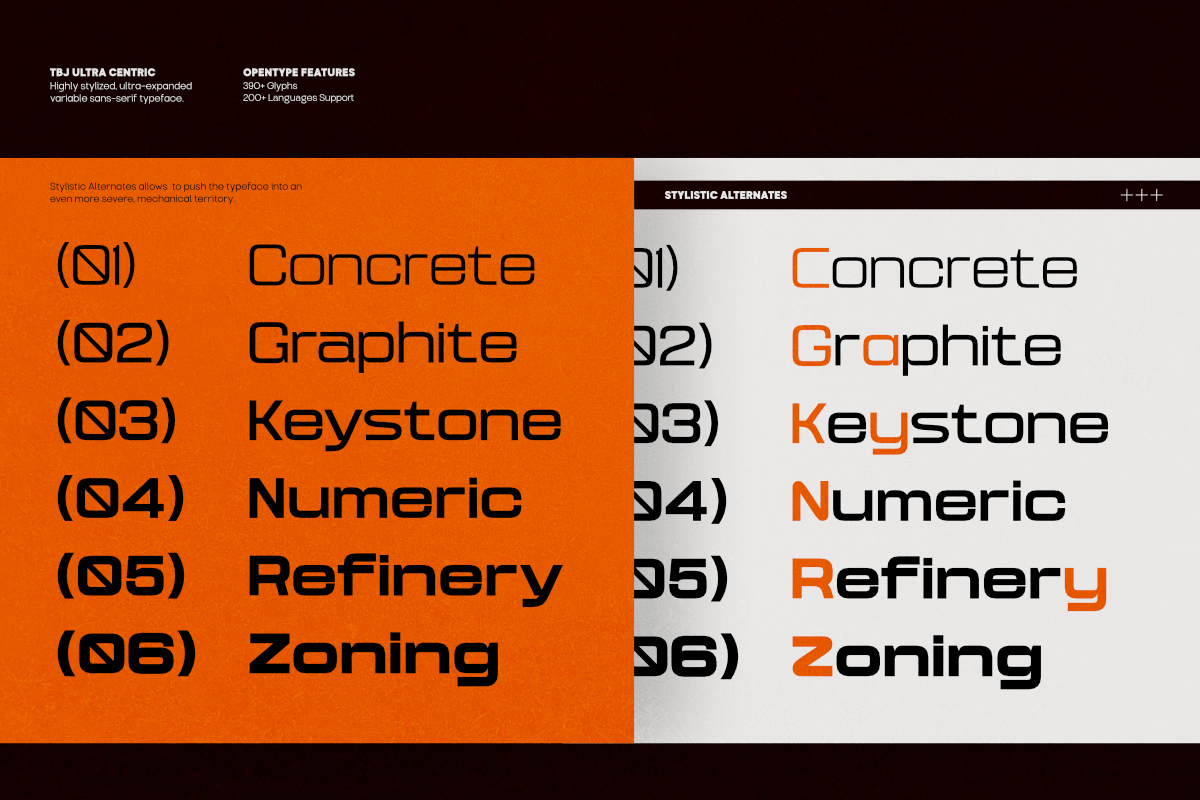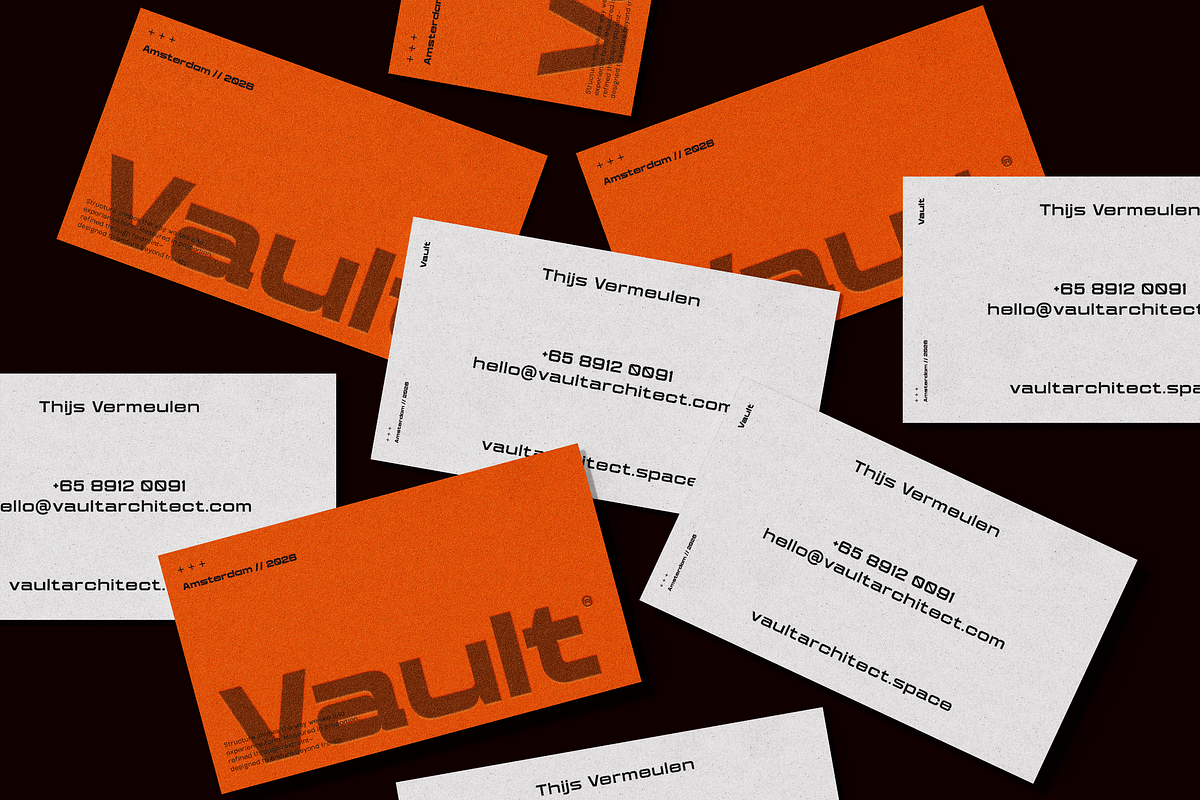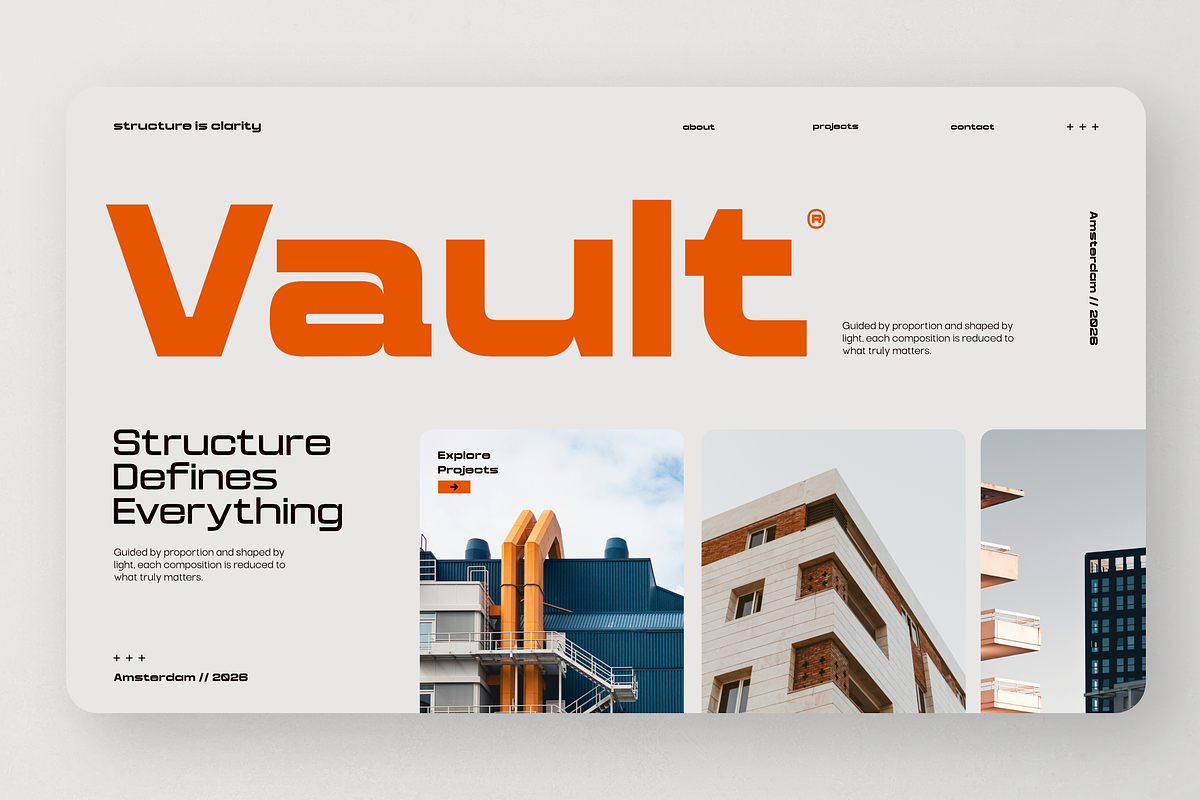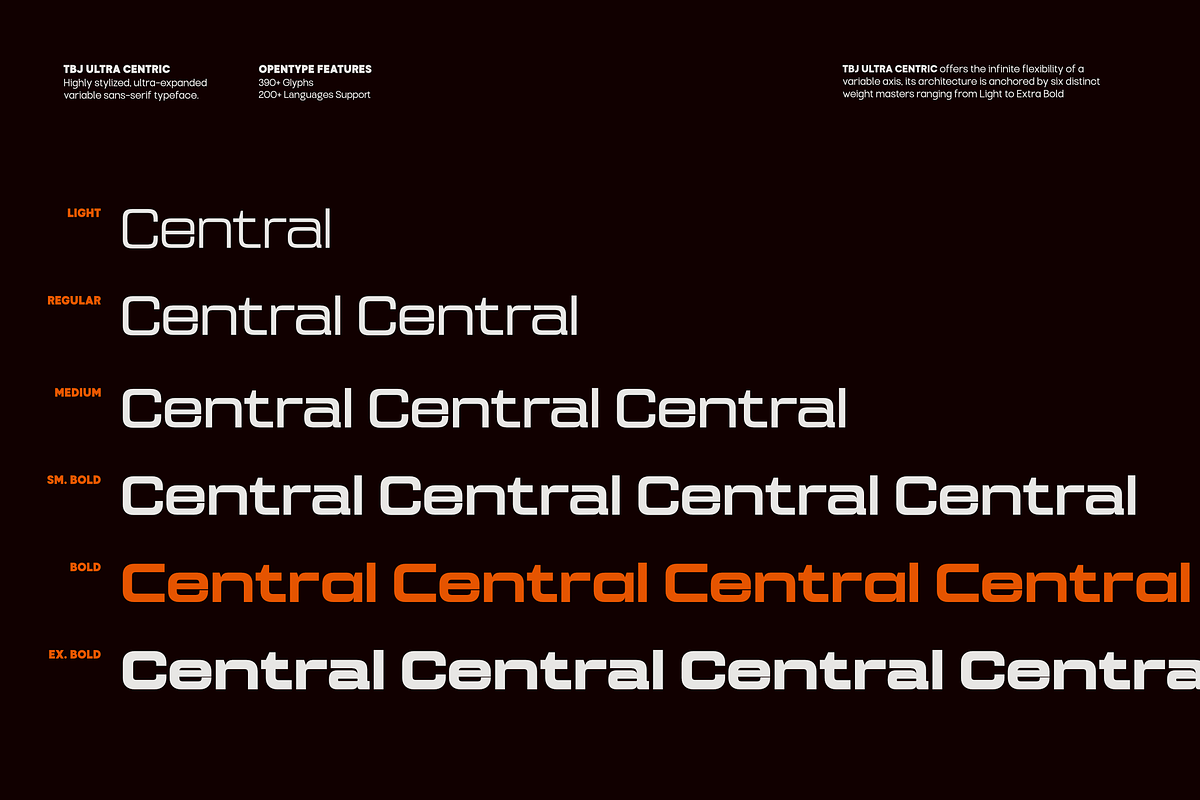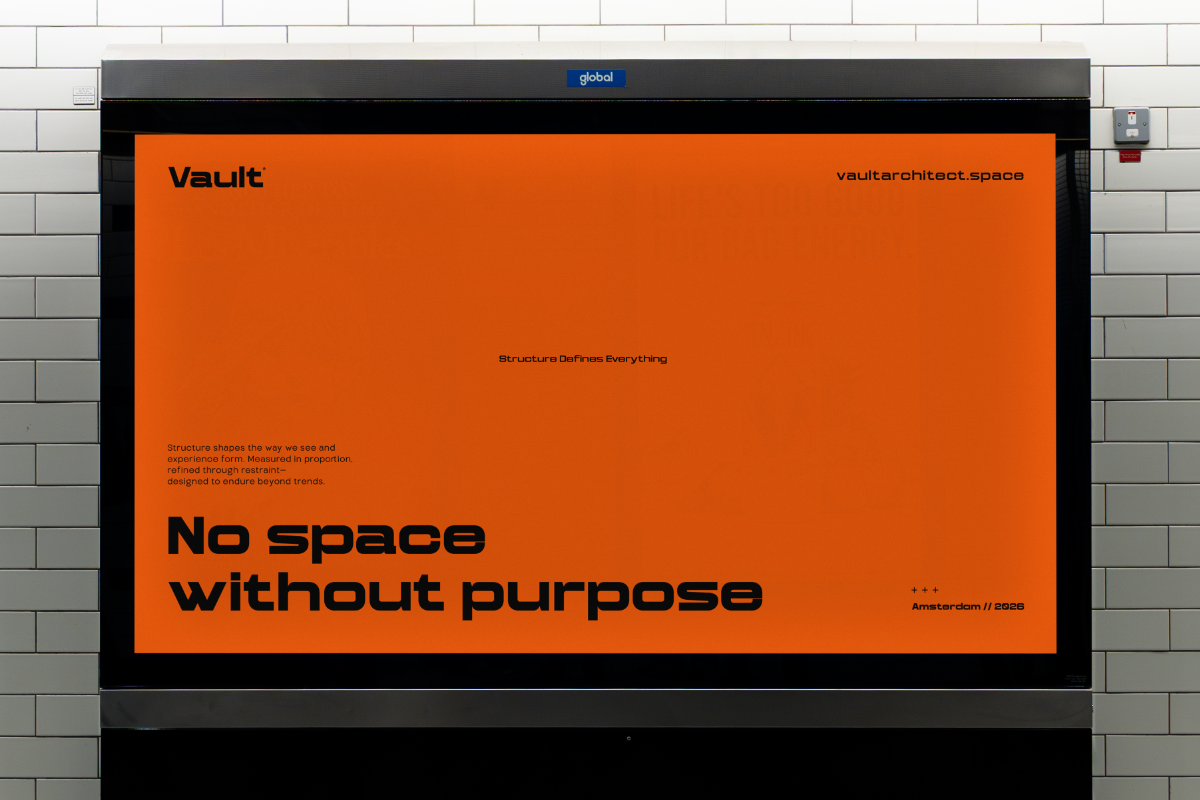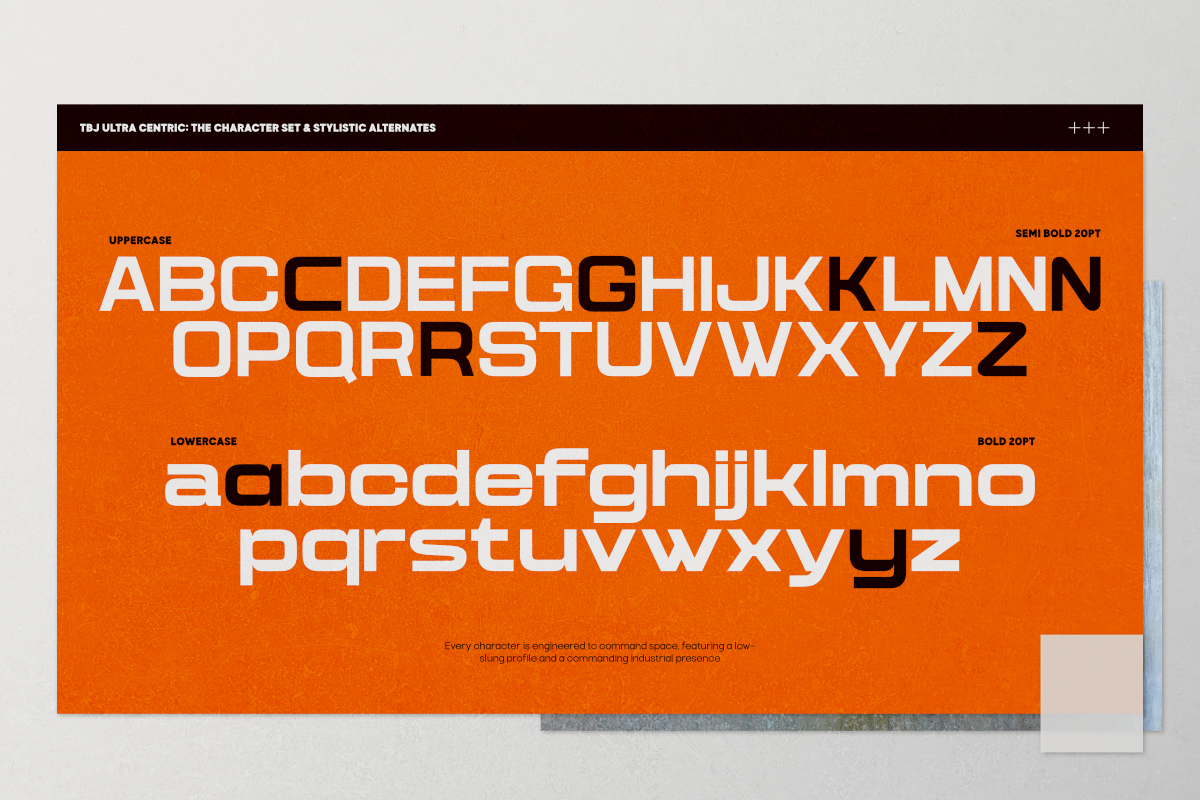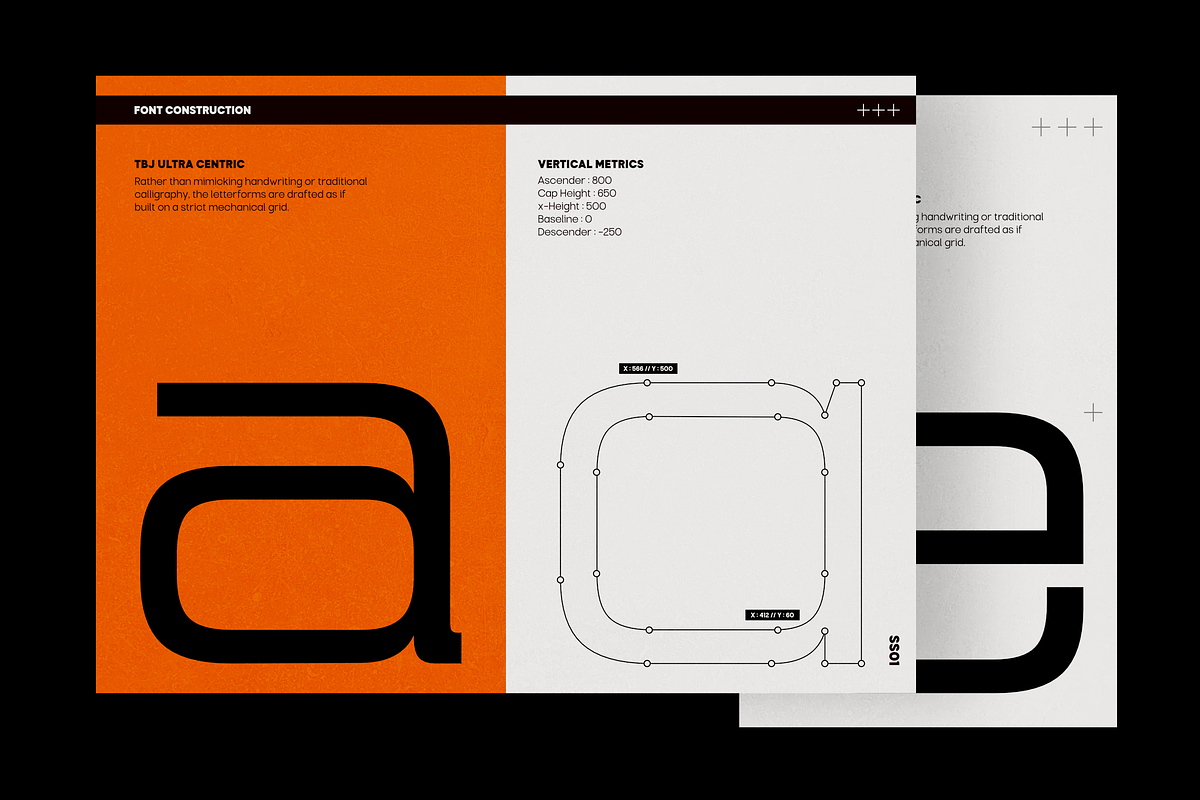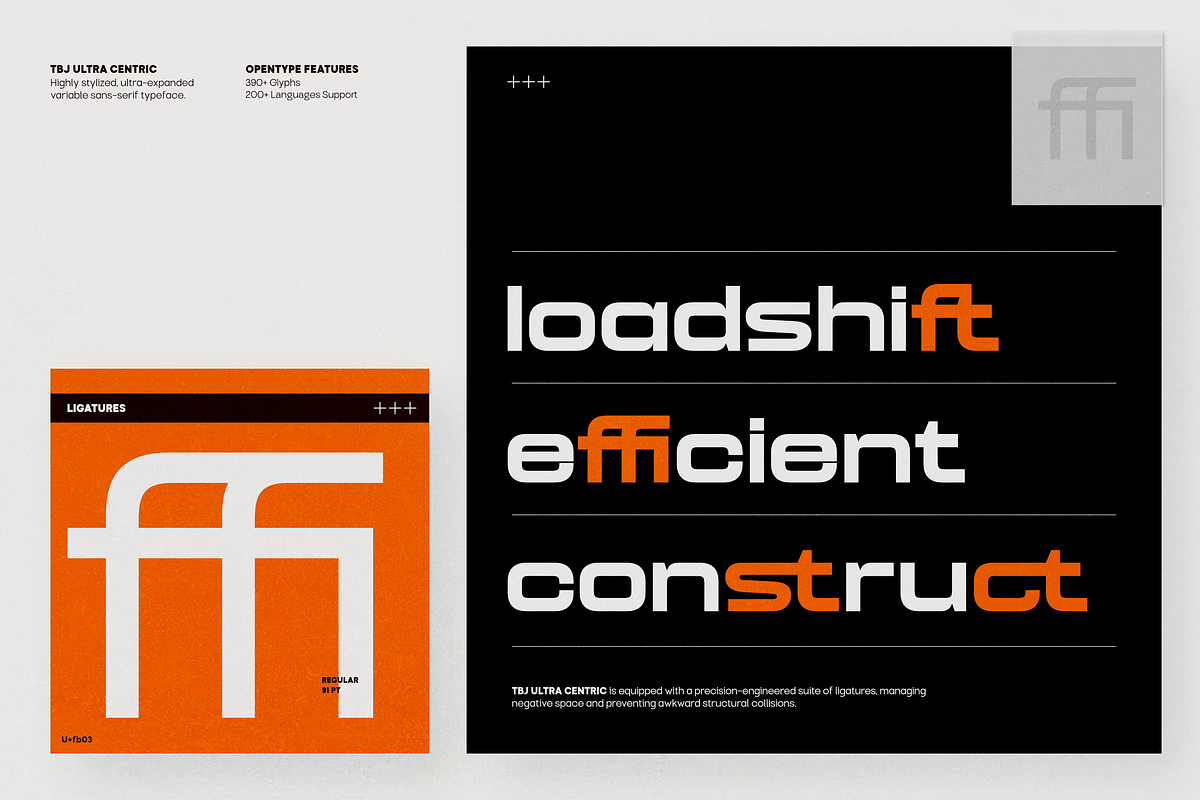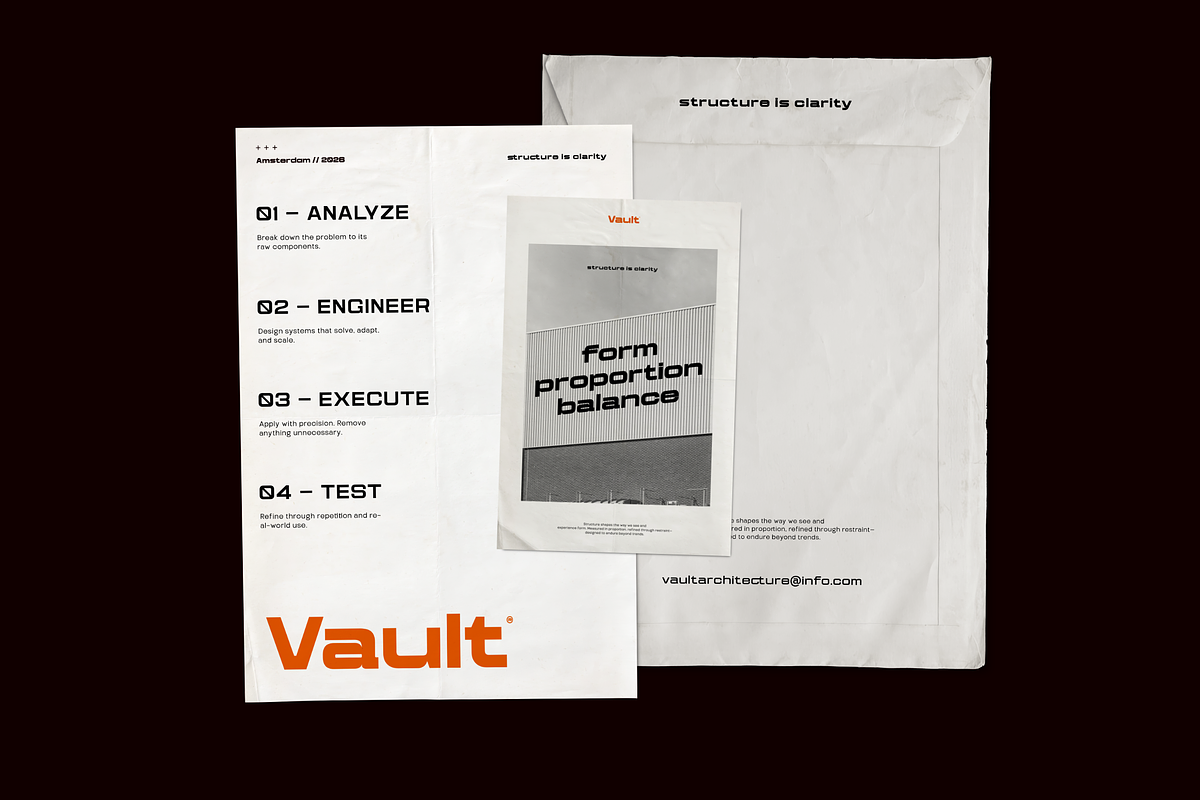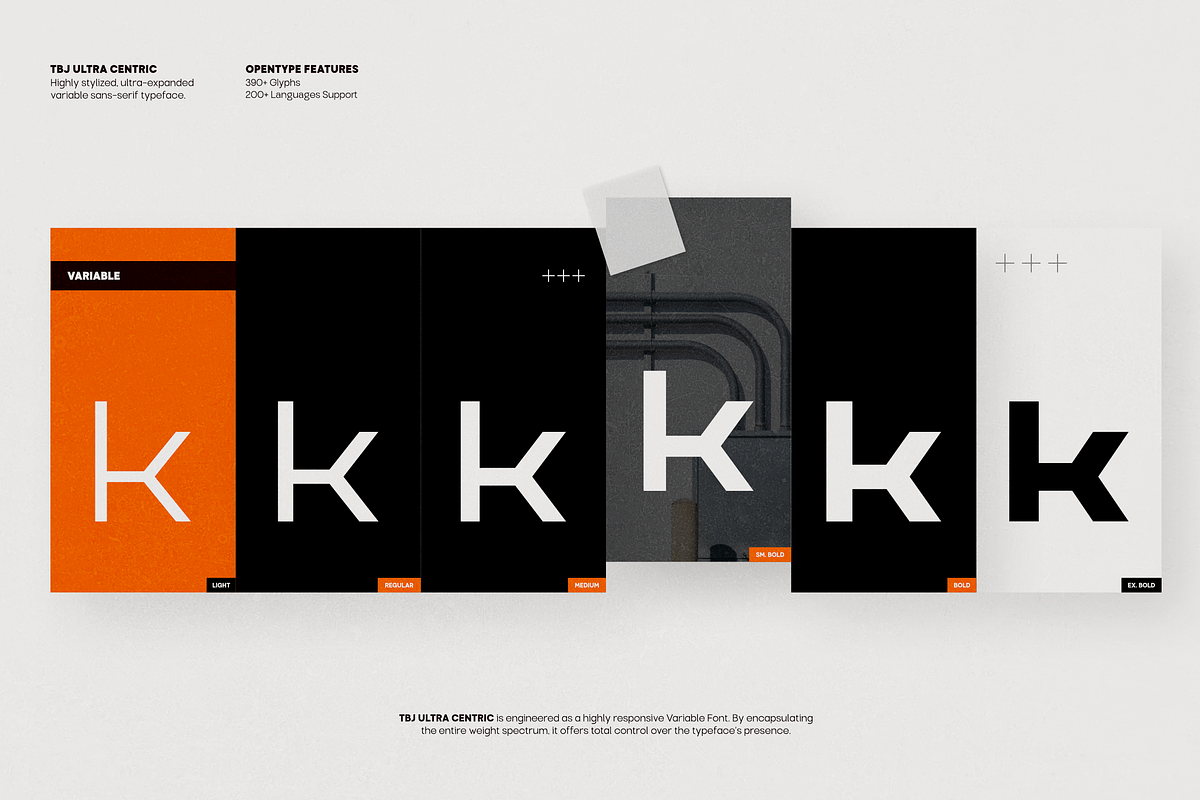
TBJ Ultra Centric Sans Expanded
TBJ Ultra Centric Sans Expanded is a modern wide sans serif typeface built for bold and impactful visual communication. Designed with expanded proportions and clean structure, this font delivers a strong presence across headlines, branding, and display use.
With 6 weights ranging from Light to Extra Bold, it offers flexibility for both subtle layouts and heavy, attention-grabbing compositions. Each weight maintains consistency while increasing visual power, making it perfect for logos, posters, editorial design, sports branding, and digital content.
Its wide form and contemporary style create a confident, urban feel ideal for designers who want a modern, strong, and versatile sans serif family.